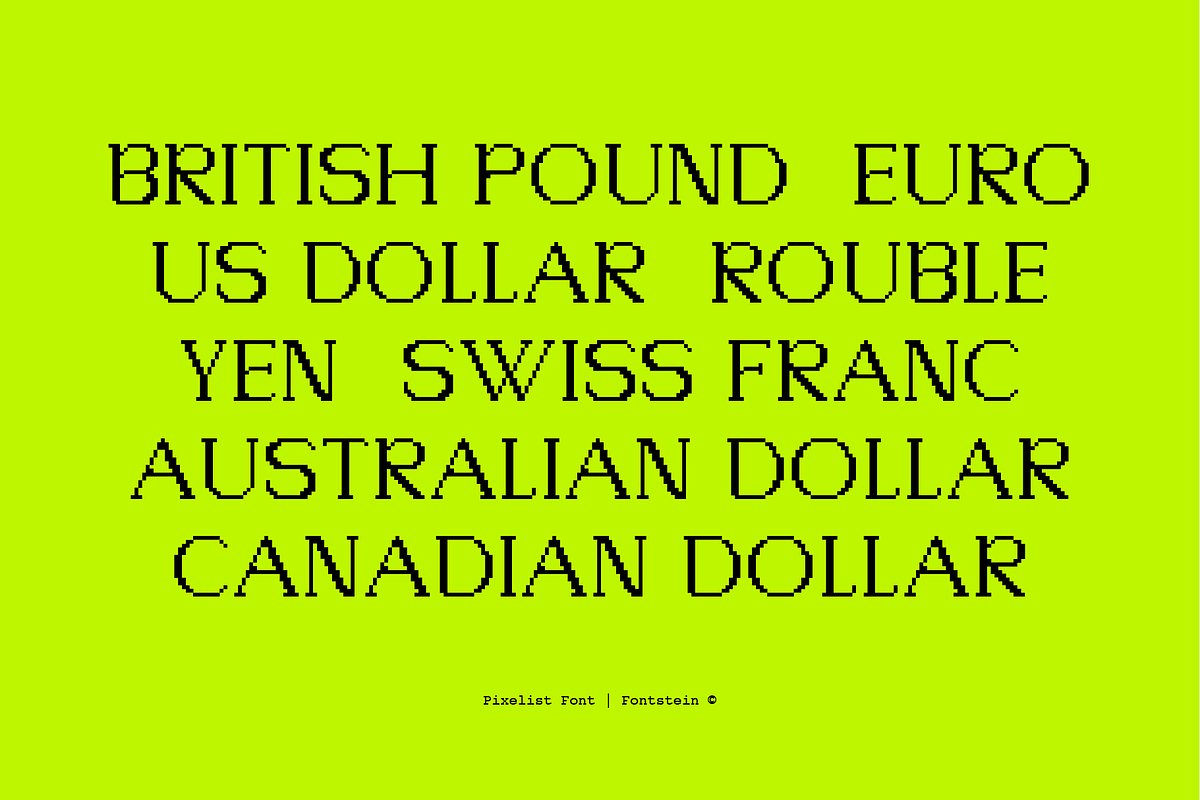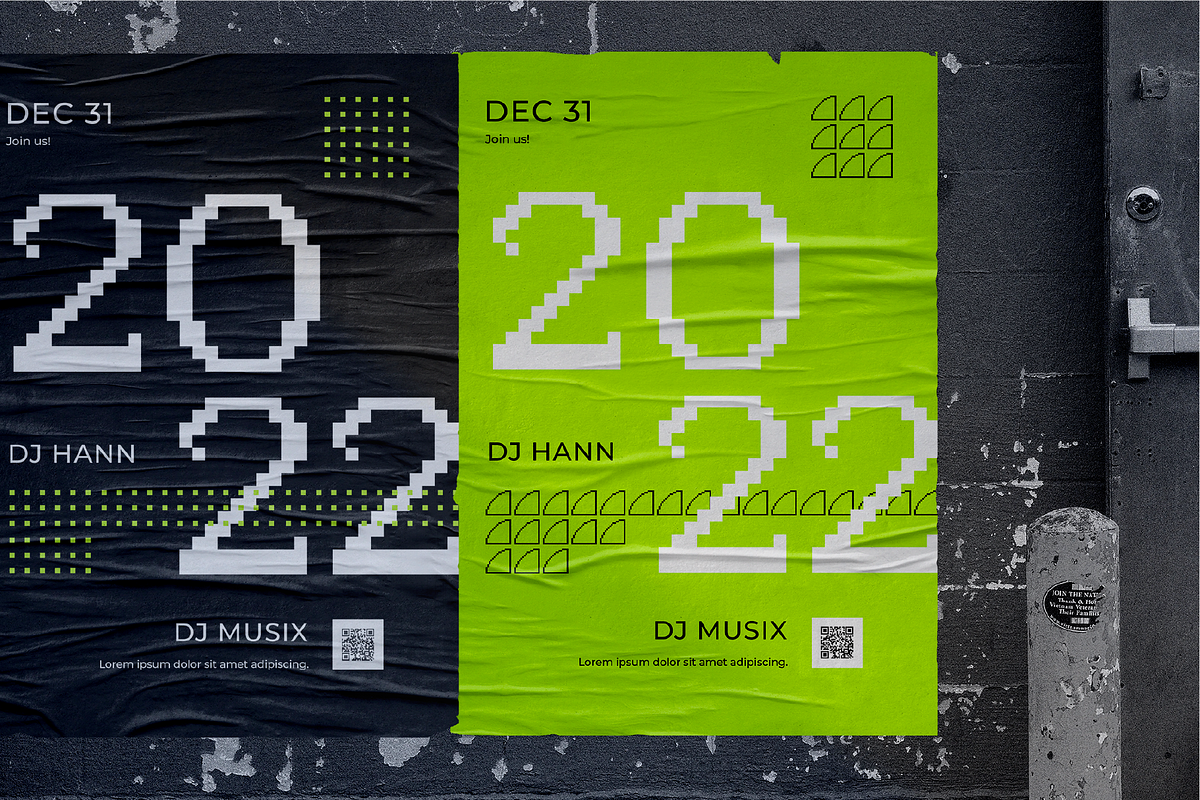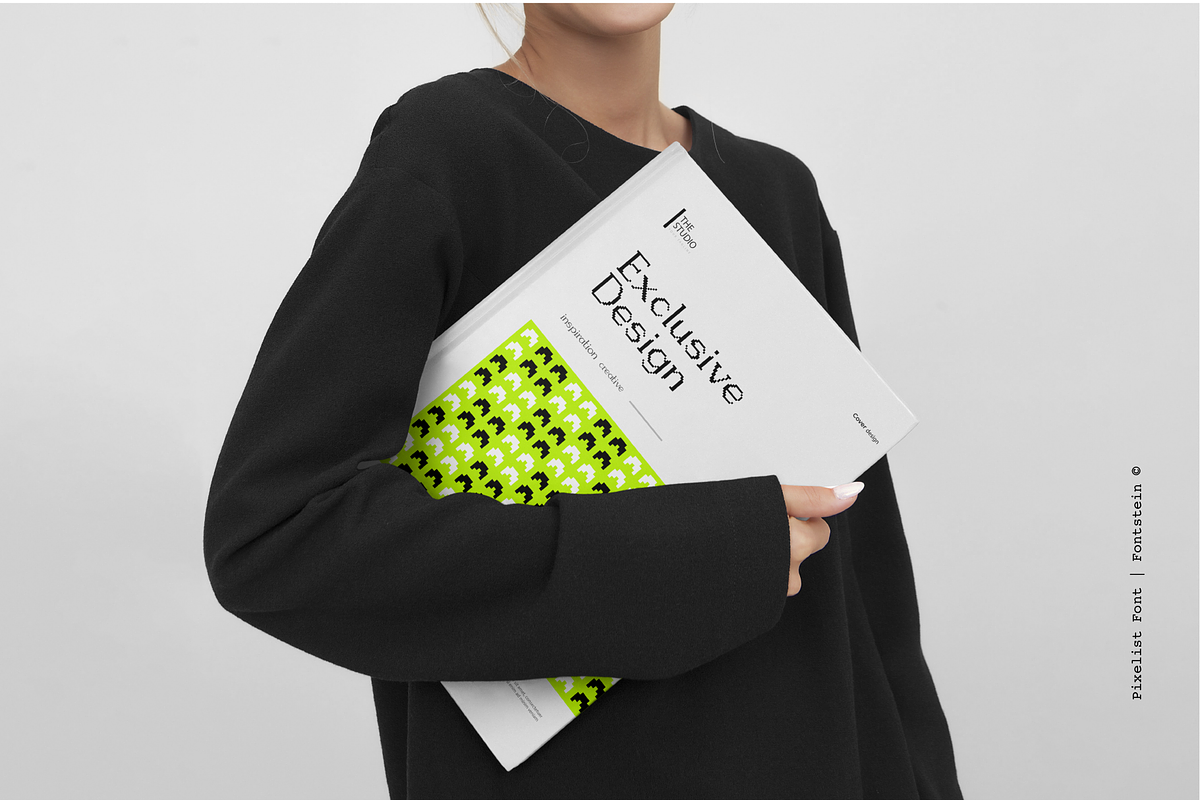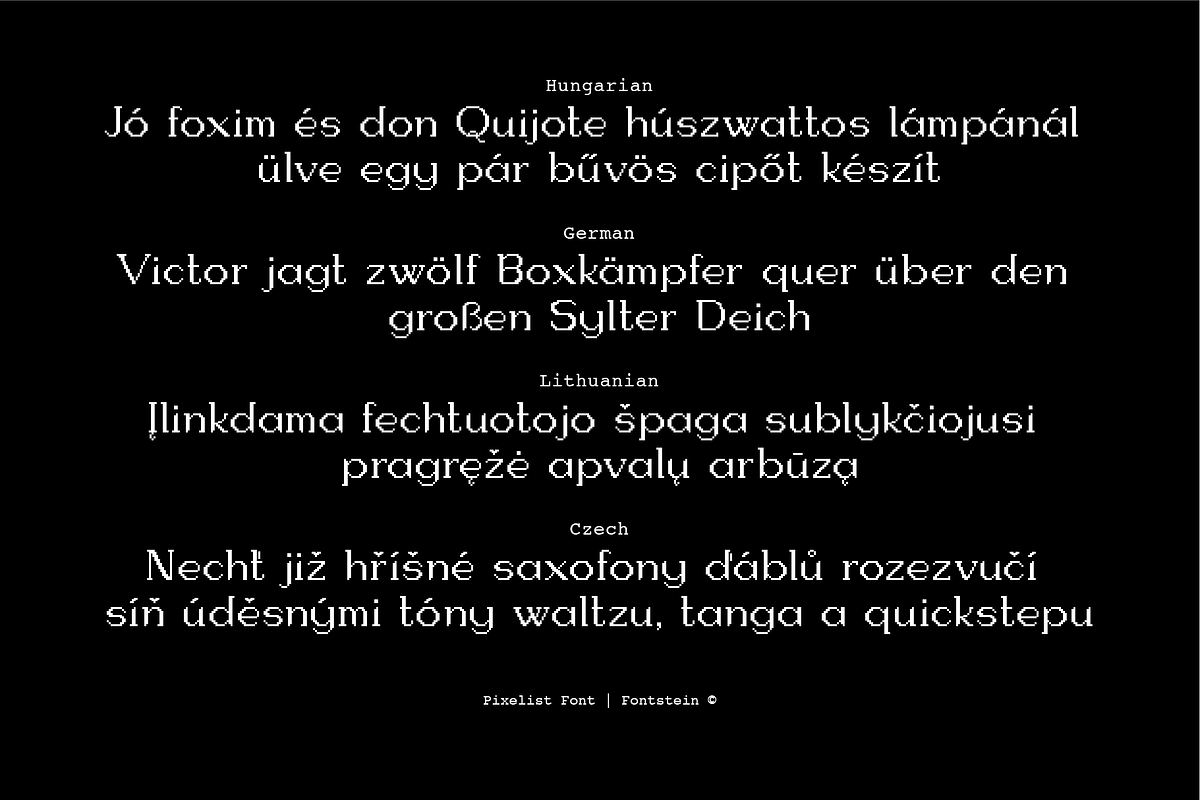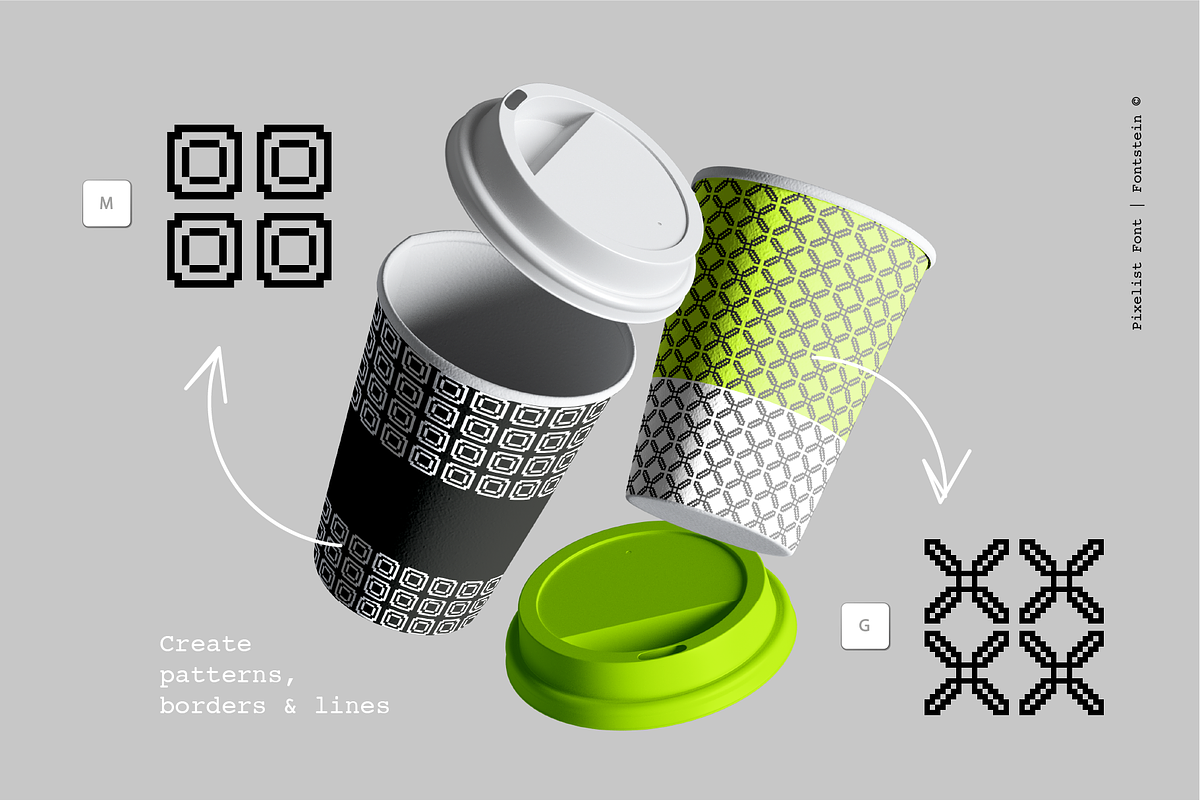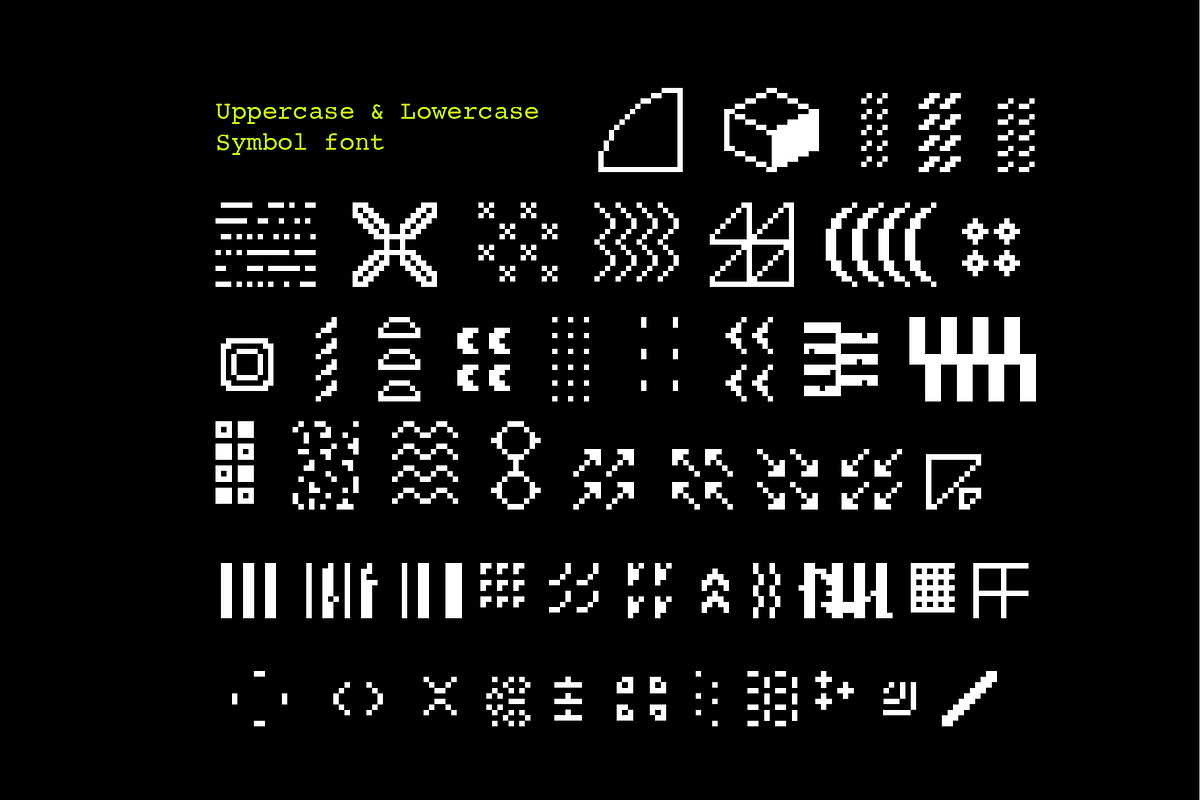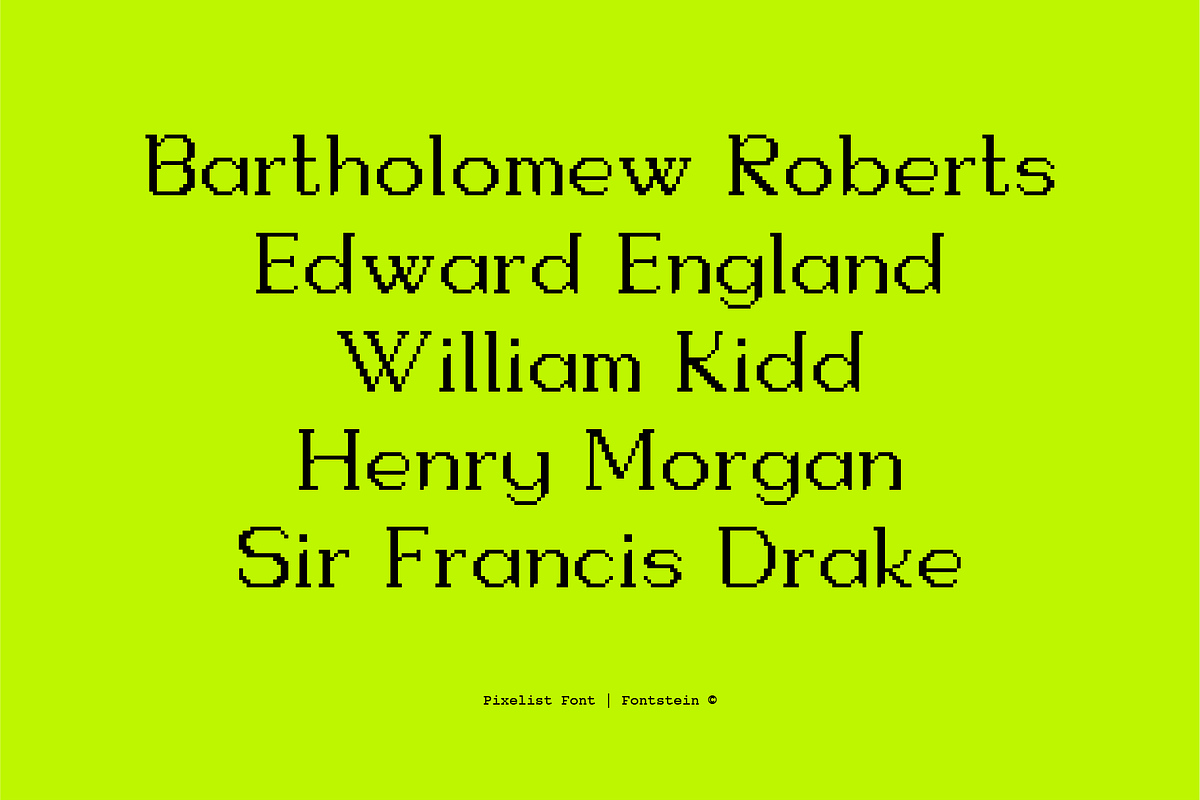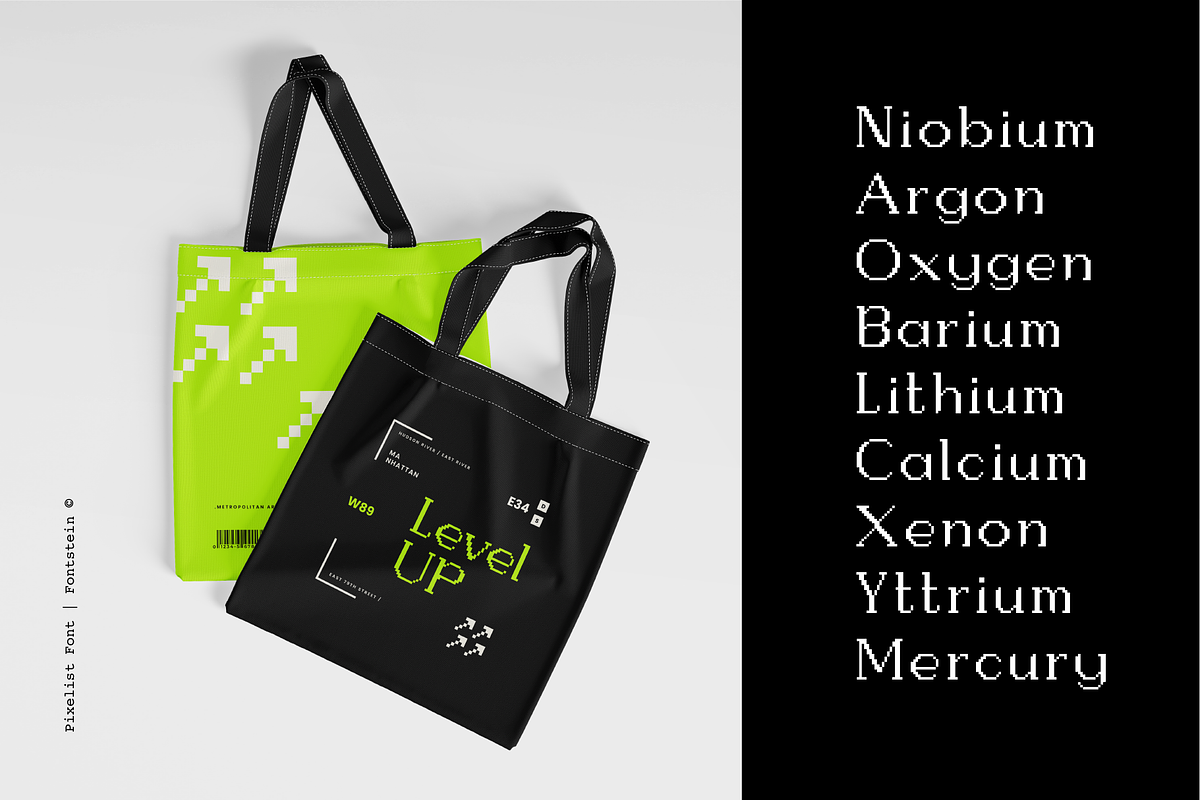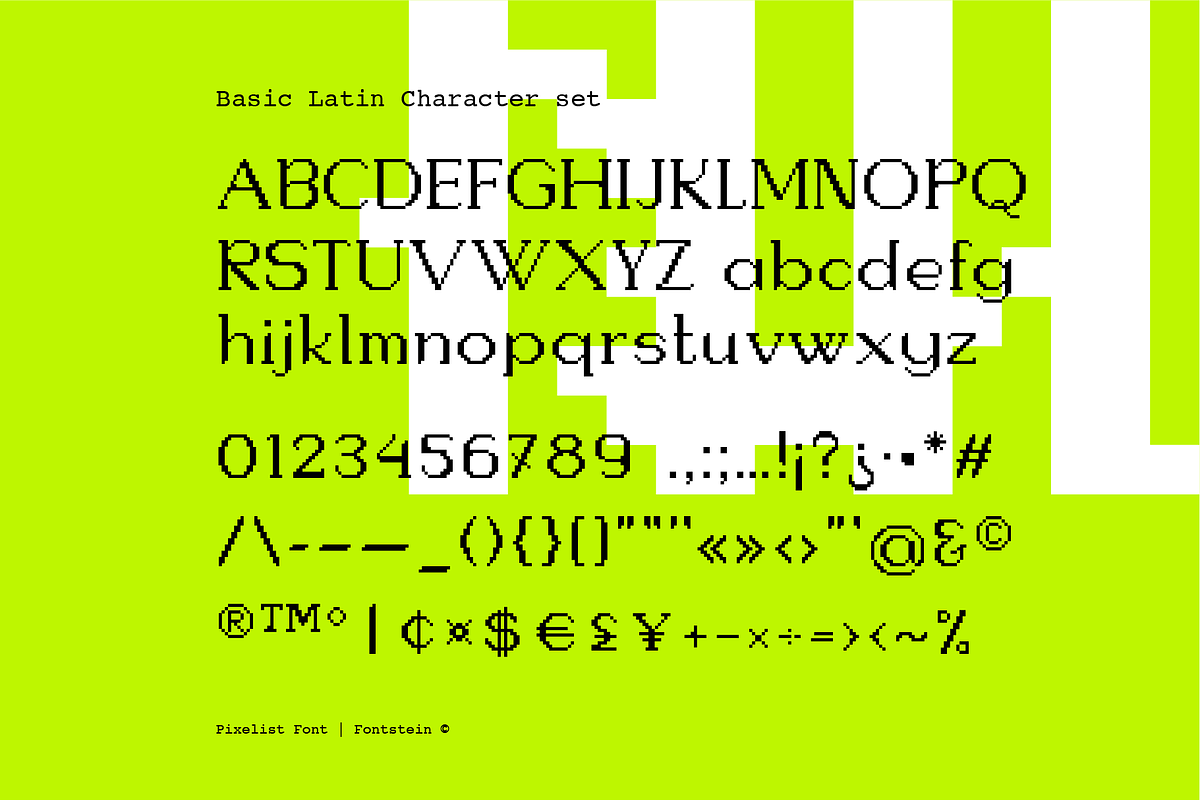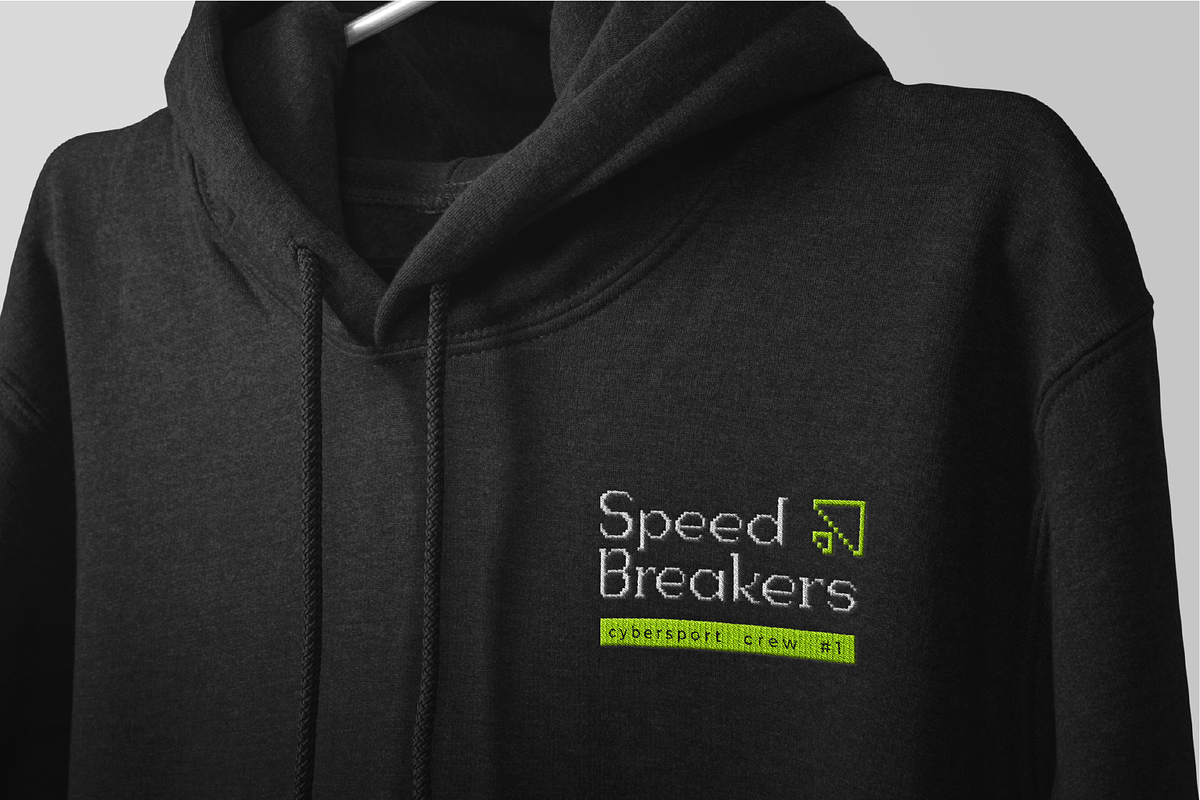
PIXELIST | Pixel taste display font
PIXELIST is a combination between classic serif font and 8-bit pixel font with respect to '80s game designers.
The font includes uppercase and lowercase, and also multilingual support.
Pixelist is a multipurpose display font. It works best in logos, whole-page-sized magazine illustrations, or even in long sentences, goes well with retro t-shirt designs, posters, illustrations, logos, and more.
Effortlessly create the mood of the '80s with the help of an additional dingbat font, which consists of 52 elements. This will help you create lines, borders, and patterns in the same style as the Pixelist font. Please try to do this in the frame of the example.